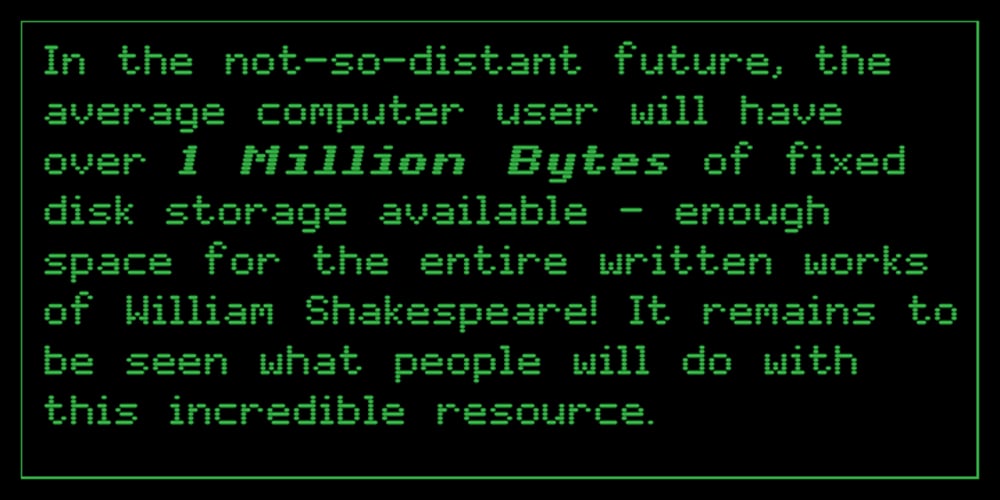
WL Rasteroids Font Family was designed by Samuel Goldstein and published by Writ Large. WL Rasteroids contains 4 styles and family package options. Rasteroids is a typographic flashback to computing of the mid 1980s, when 9-pin dot-matrix printers were the state of the art, and most home computer displays were TVs hooked up to RF modulators. Rasteroids not only captures the dot-matrix printer look, but recreates the rasterized appearance of text on those lower-resolution monitors. Unlike that dot matrix type of yore, Rasteroids does have some variation in character width, and is legible in small blocks of copy. Still, it is best used sparingly, or as a special effect.